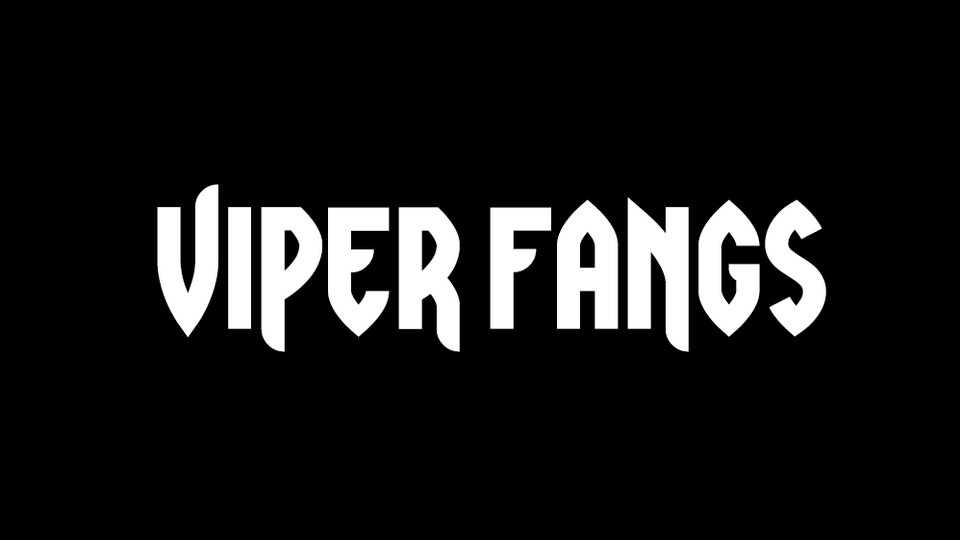
Download Viper Fangs is a thick, pointy metal display font. Viper Fangs font is suitable for music bands, posters, covers, banners and other creative projects.